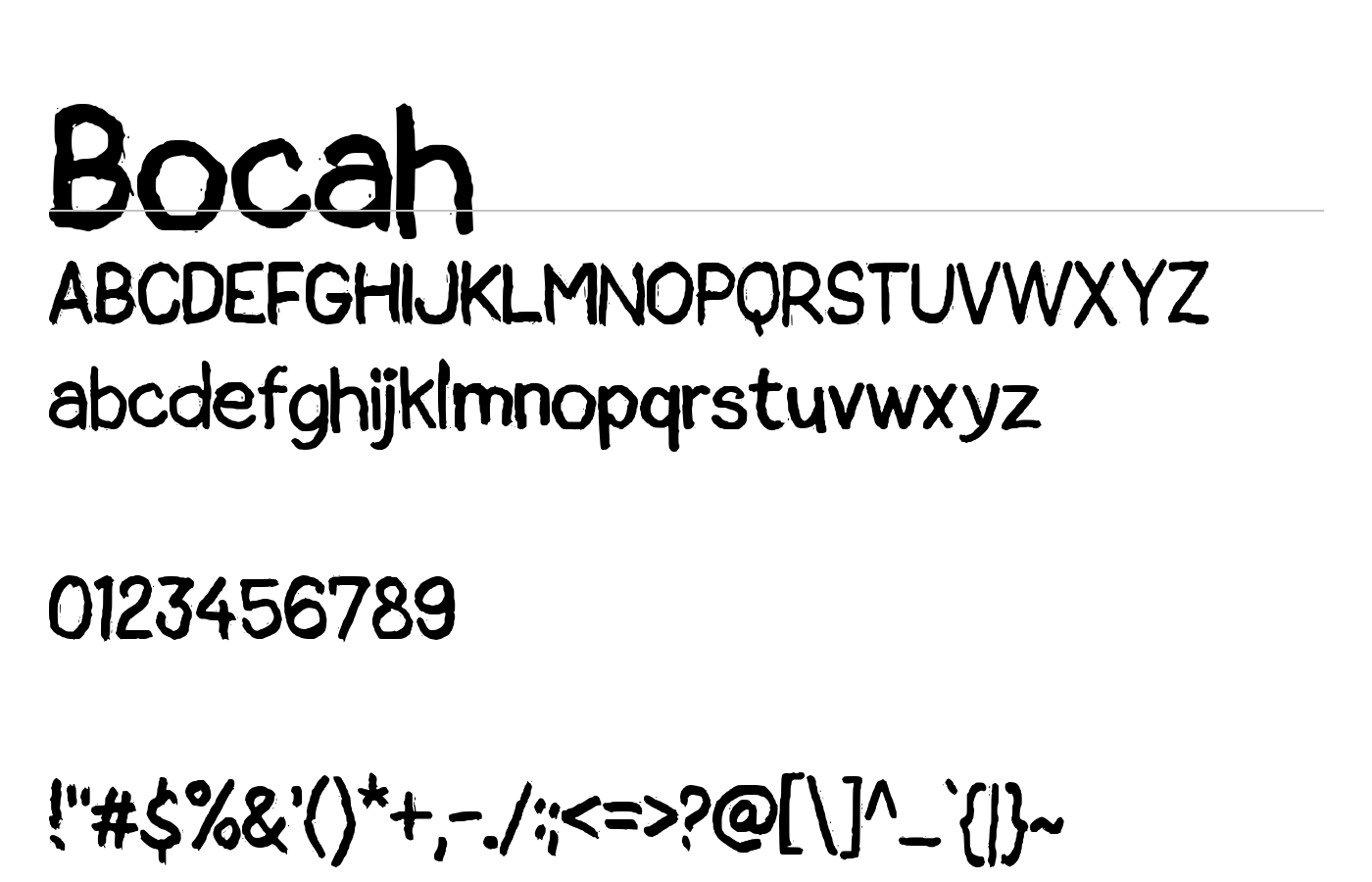
Bocah is a playful, hand-drawn sans serif font with a casual, organic feel created by its irregular strokes and slightly rough texture. It features a medium weight with normal width and a moderate x-height, making it approachable and lively without sacrificing readability. This font works well for creative projects, children’s materials, posters, and branding that seeks a friendly, informal, and expressive vibe.
Bocah Font
About Bocah Font
| Font family | Bocah Font |
| Designer | Anang Fibriyanto | Cornertype™ Studio Indonesia |